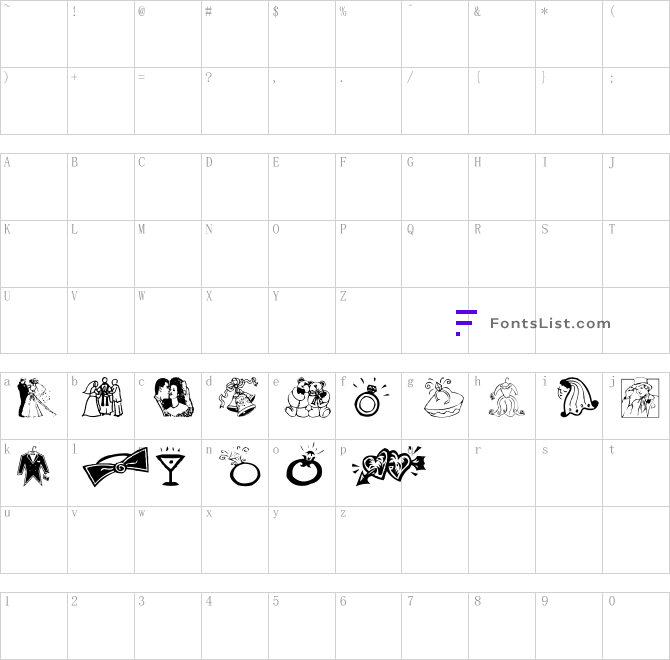
- Font Name:AEZ wedding dings
AEZ-wedding-dings.ttf is a very beautiful artistic font, AEZ-wedding-dings.ttf is widely used in the design and printing of various books and pictures,AEZ-wedding-dings.ttf has a strong visual impact,AEZ-wedding-dings.ttf is a commonly used font in newspapers, magazines and books, and is used in posters, e-commerce Poster design, store design, logo design, font design and other fields.AEZ-wedding-dings.